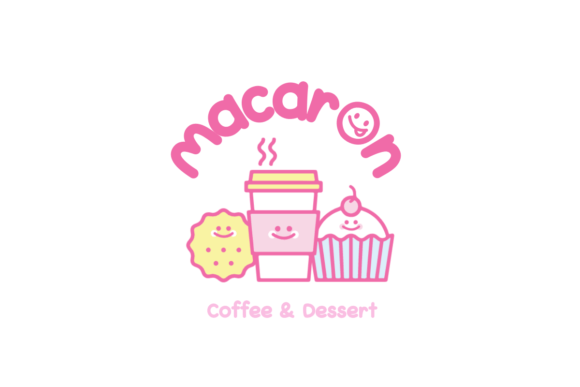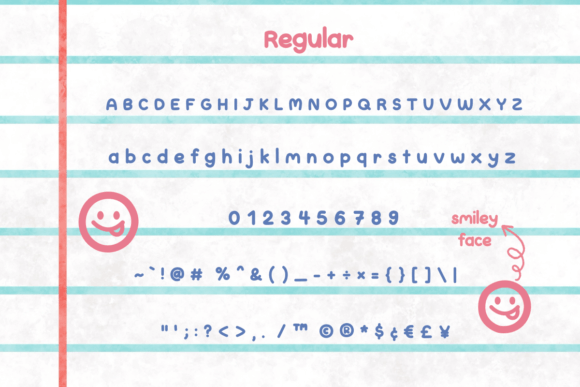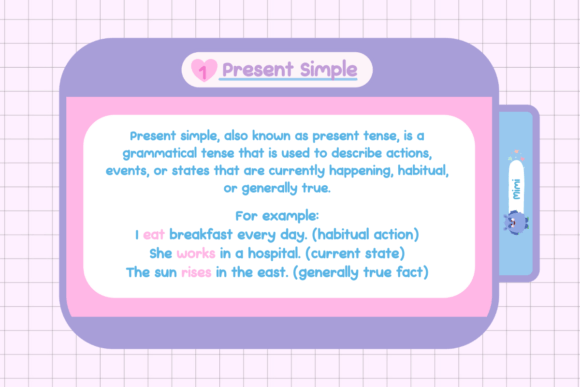
Cute Note Font
Cute Note is a cute and playful display font that brings a playful feel to your designs, complete with a cute smiley face gimmick. This font is perfect for a variety of design projects, including notes, logos, quotes, greeting cards, posters, t-shirts, and much more. Plus, as a special bonus, you’ll receive 25 cute note PNG and SVG files that can be used for decorating or creating memo notes.